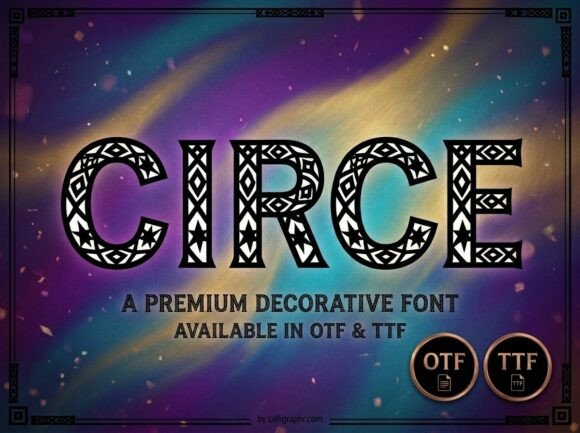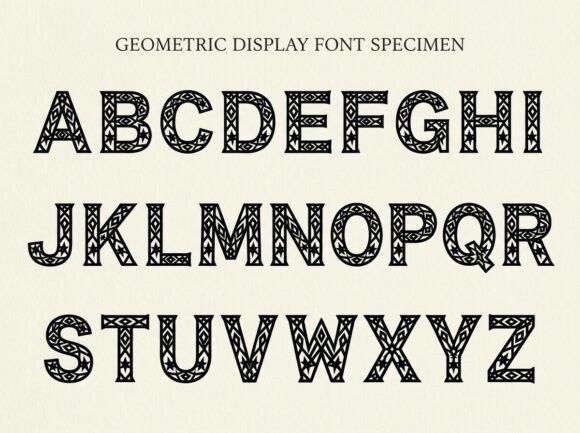
Introduction to Circe Font
Step into the stars with Circe, a celestial display typeface that captures a “mystical-and-mathematical” soul.
This font features sturdy, high-contrast letterforms uniquely characterized by rhythmic, hand-drawn geometric patterns and star motifs integrated into every stroke, bridging the gap between ancient astrology and modern cosmic branding With its medium structural weight and ornamental personality, Circe is the premier choice for independent tarot reader identities, boutique crystal shop logos, epic fantasy book covers, and high-impact “stellar-and-sacred” social media headers.
Key Features of Circe Font
Why Choose Circe Font?